The Best Font for a Logo: 20 Top Picks for Any Brand
The best font for a logo can define how your brand is perceived at first glance. The right typeface communicates more than a name. It reflects your brand’s personality, values, and market positioning. According to Graphic Eagle on typography in logo design, balancing brand identity with readability and adaptability is essential
Selecting the best font for a logo is not only about aesthetics. It influences recognition across business cards, websites, packaging, and signage. Choosing high-quality typefaces helps your brand express professionalism, clarity, and style from the very beginning. Let’s find out which font is the best for your brand’s look.
- Font choice should reflect brand identity, audience, and industry while balancing style and function.
- Prioritize readability, scalability, and versatility across media.
- Using the best fonts for a logo business can help distinguish a brand and support long-term visual consistency.
7 Tips for Choosing a Logo Font
Here are the best tips for choosing a font for a logo, giving you practical guidance to ensure your typography supports a strong and consistent brand identity:
- Understand your brand personality and industry expectations;
- Seek inspiration from established brands but avoid overused fonts;
- Prioritize readability across sizes and backgrounds;
- Favor timeless fonts over trendy ones;
- Limit font variety for consistency;
- Test fonts across different media and scales;
- Ensure font matches target audience preferences.
20 Popular Fonts By HansCo Studio
Finding the best font for a logo does not have to be difficult. At HansCo Studio, you can explore options that fit your brand style. Here is a curated list of the best fonts to consider.
Modern Minimalism
Modern minimalistic style can evoke clarity, simplicity, and professionalism, making it ideal for tech startups or digital brands.
1. Khelyn
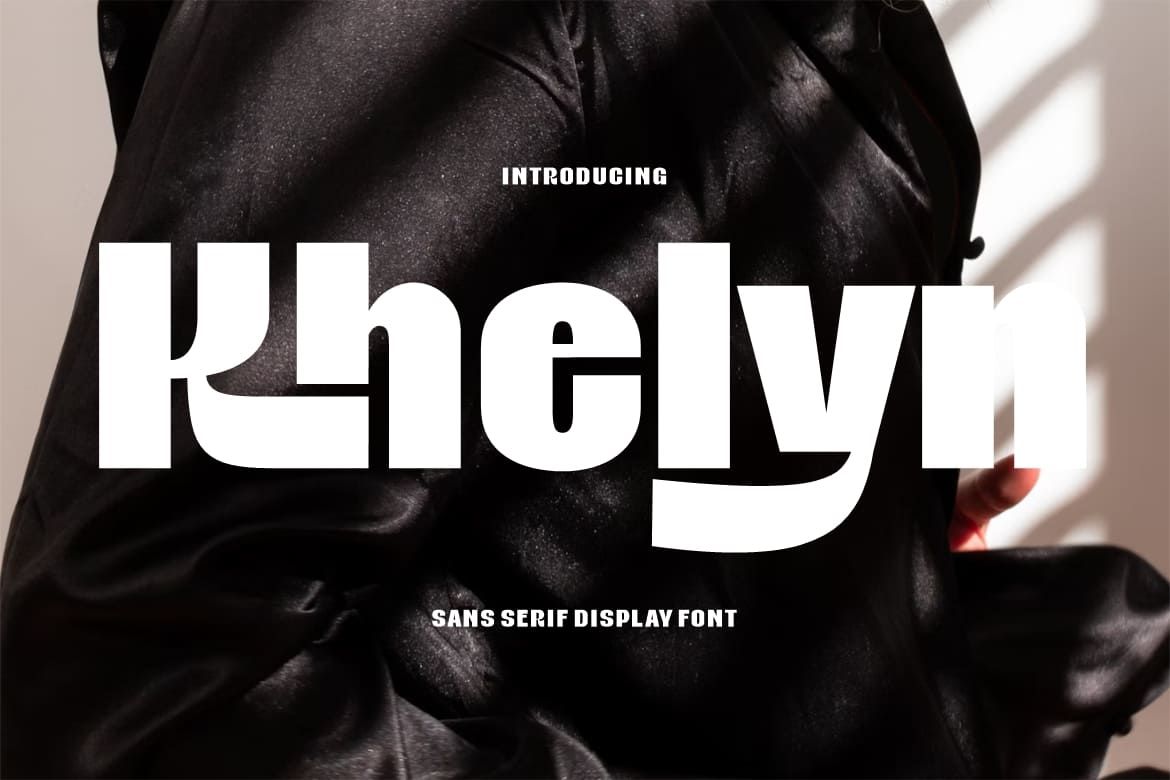
Khelyn is a tall sans-serif with clean strokes and generous spacing. It remains legible across screens and print. The minimal design conveys modern professionalism and clarity.
2. Redotic
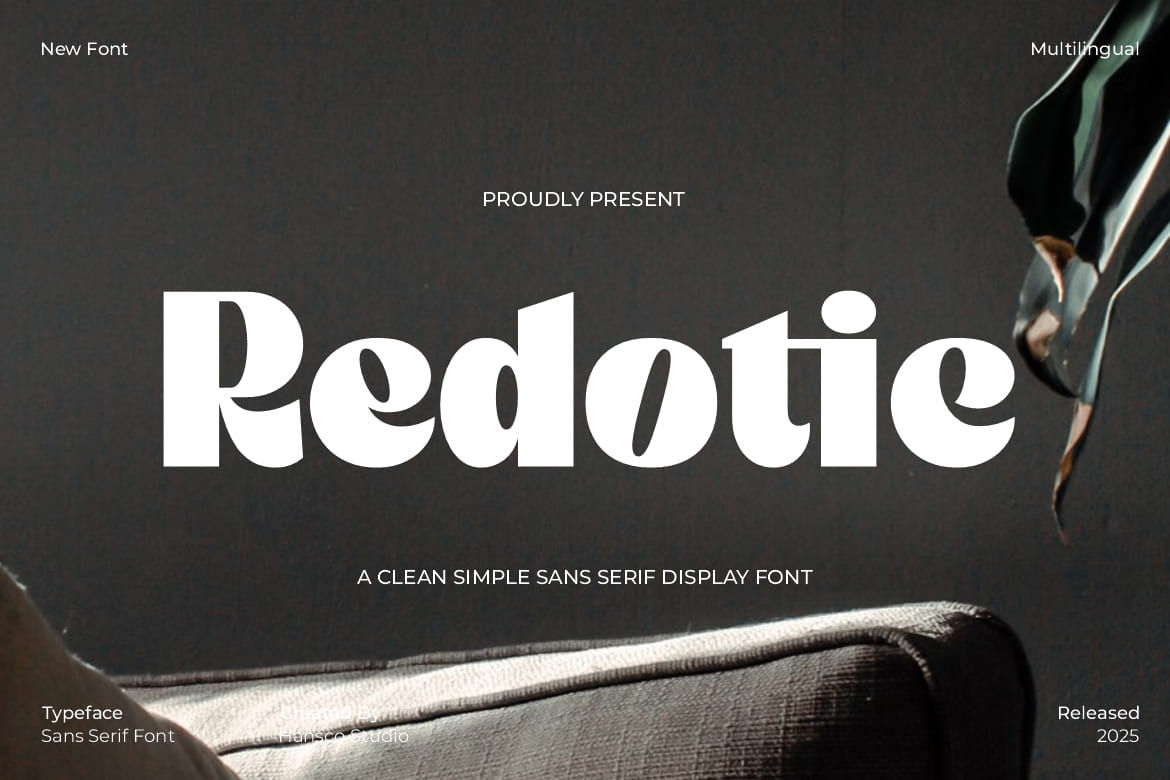
Redotic features bold sans-serif characters with balanced proportions. Its structure ensures recognition even at small sizes. Ideal for corporate or tech brands seeking reliability.
3. Cloth Fate
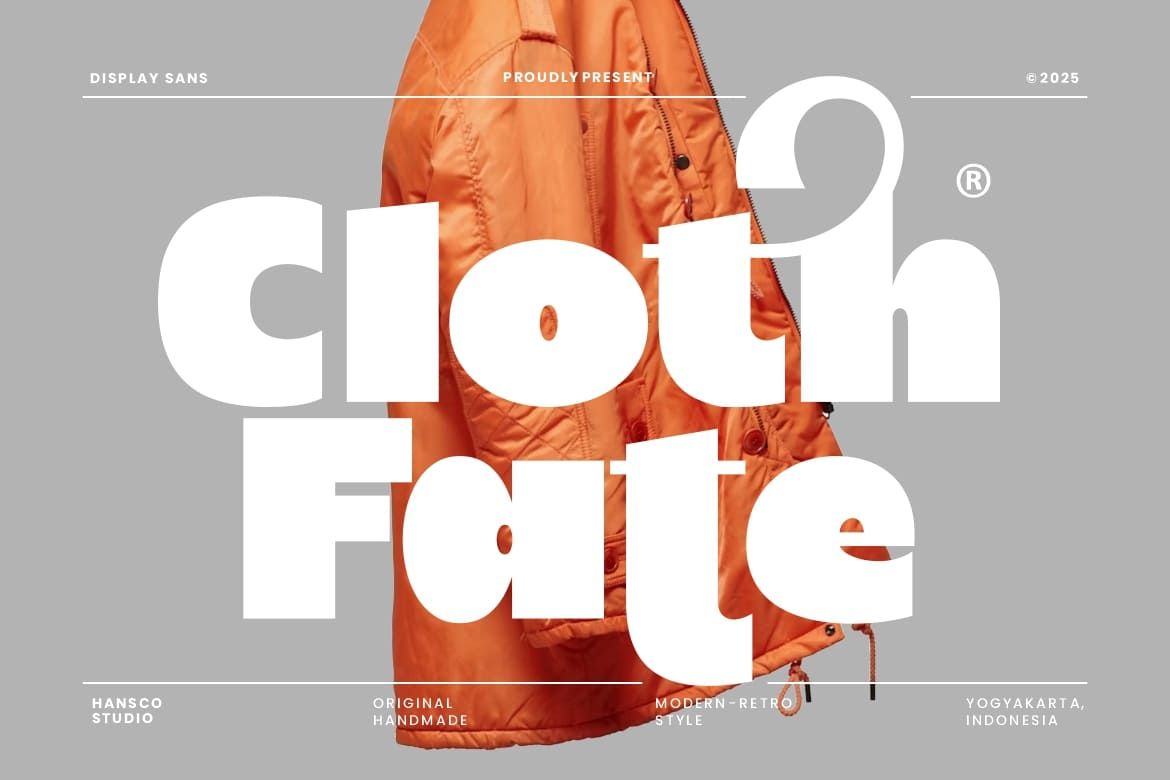
Cloth Fate provides a strong sans-serif with clean geometry. Readable across media, it conveys stability and professionalism. Perfect for modern lifestyle or industrial brands.
4. Riuka
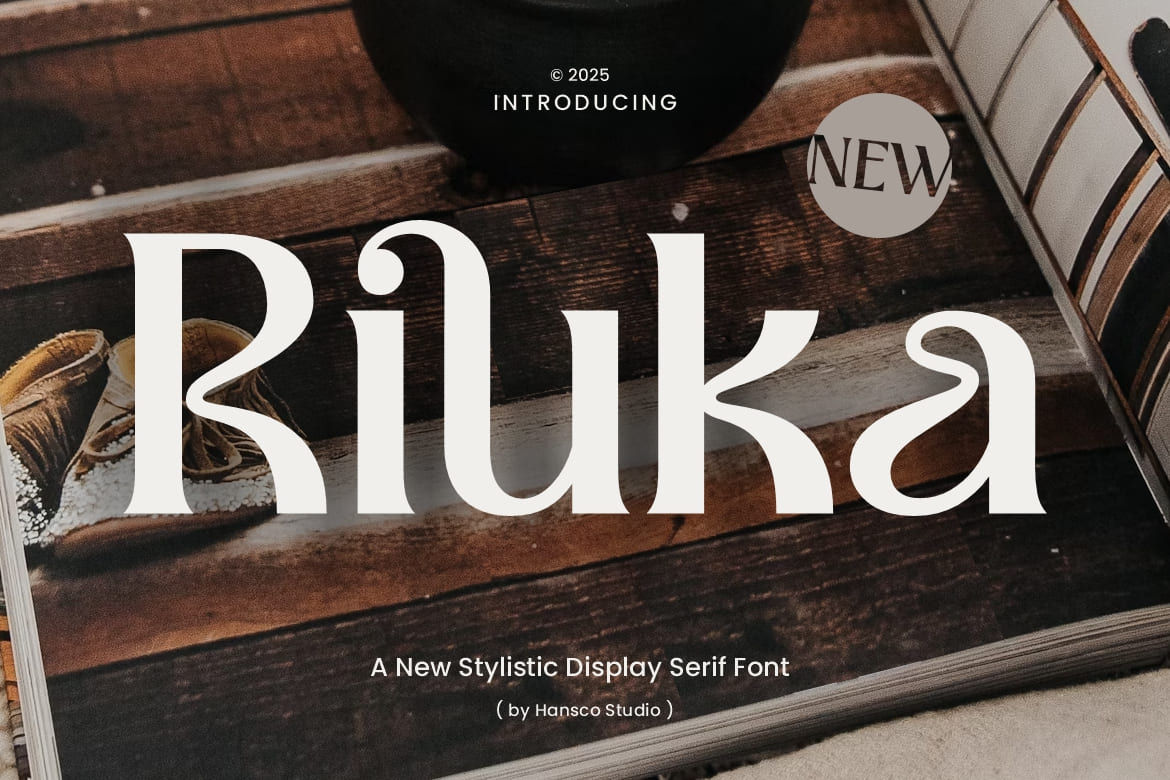
Riuka offers neutral, aesthetic sans-serif letters. Versatile for various industries, it is clear at all sizes. It presents a modern, approachable identity.
Retro & Vintage
Retro and vintage designs can also be considered when selecting the best font for a logo. These fonts evoke nostalgia and heritage. Hence, it’s perfect for cafés, boutiques, or artisanal brands wanting character and story.
1. Letter Magic
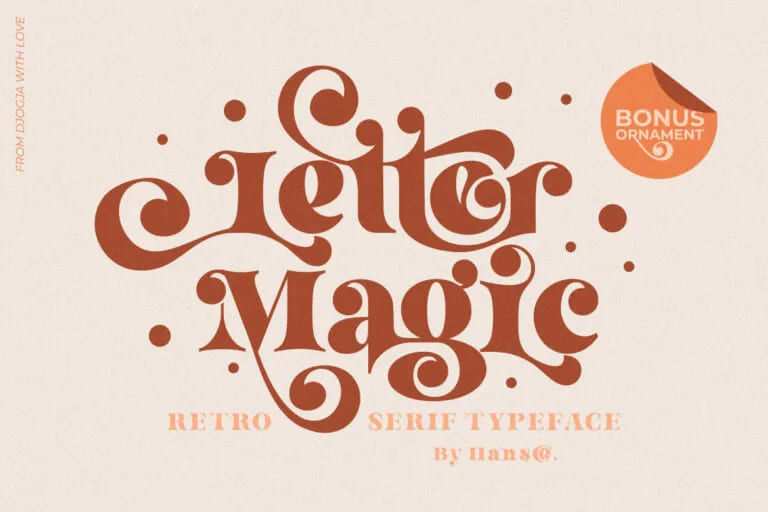
Letter Magic blends retro serif charm with decorative swashes. It adds a handcrafted feel to logos. Ideal for boutique or heritage-inspired businesses.
2. Bakso Menu
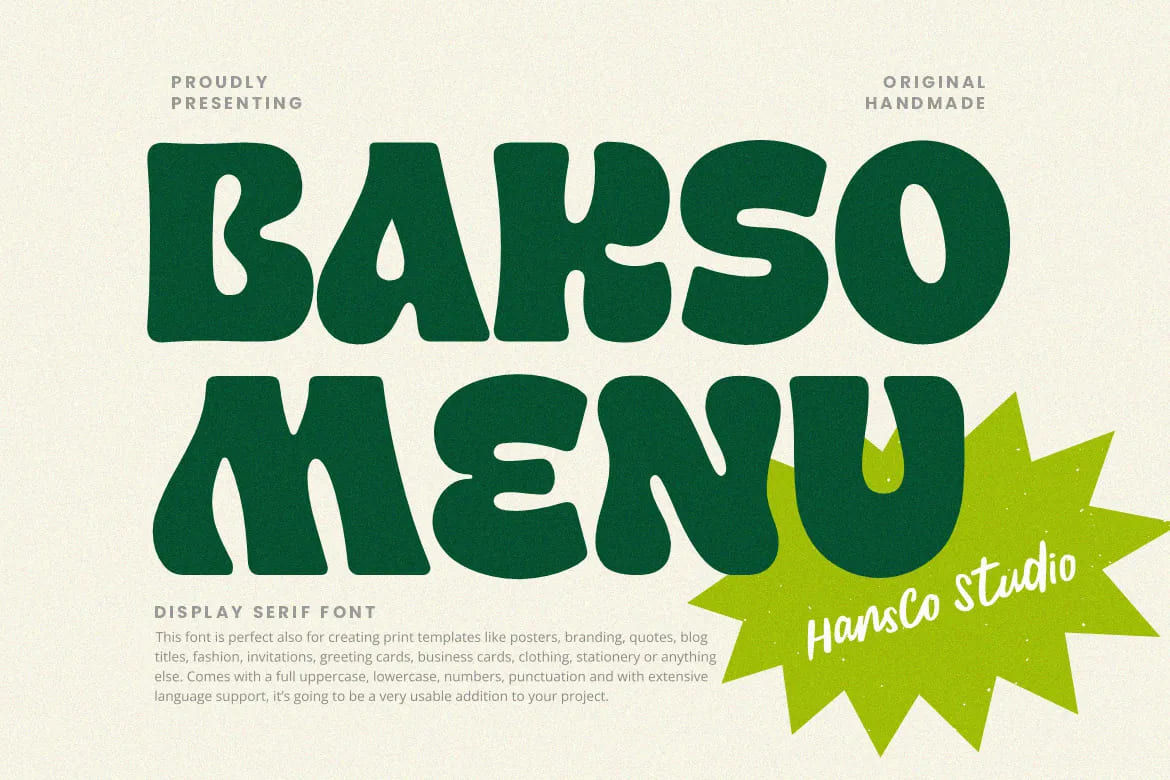
Bakso Menu has chunky, bold retro letters. It ensures visibility and evokes tradition. Suited for casual, nostalgic, or street-food brands.
3. Retro Harmony
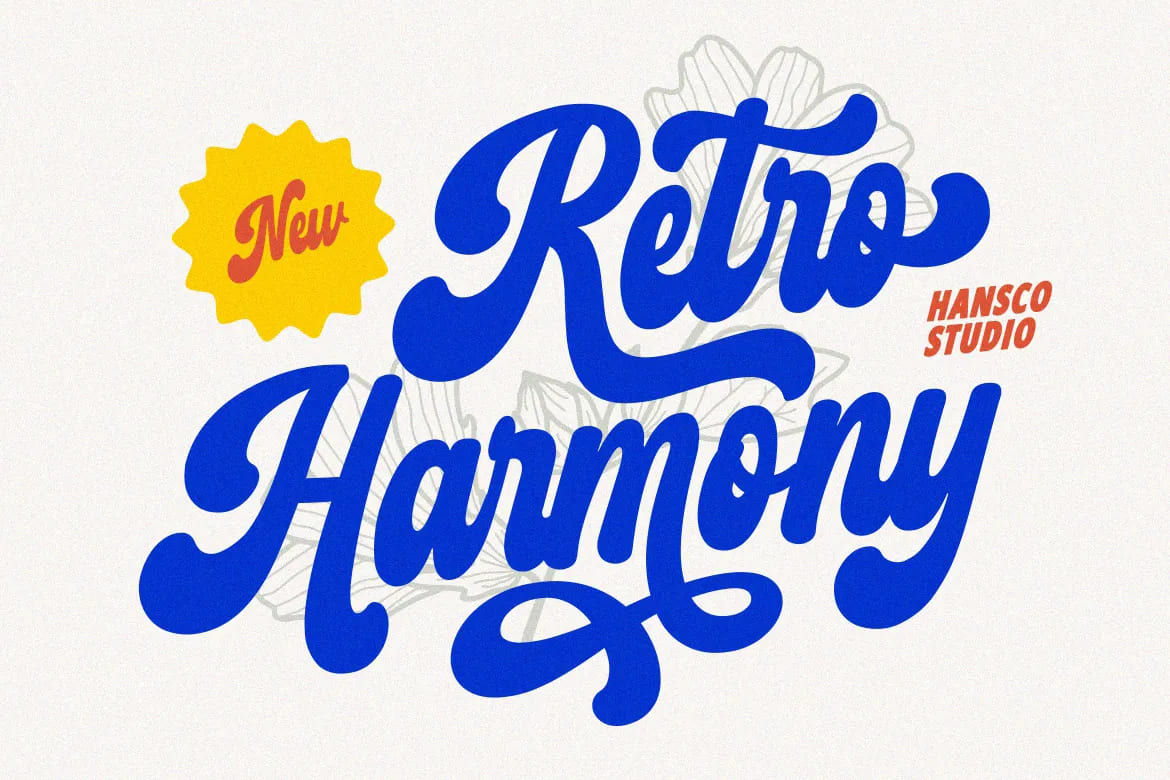
Retro Harmony offers a vintage serif look with readable forms. It balances decorative charm and clarity. Great for heritage or boutique businesses.
4. Rangu Halend
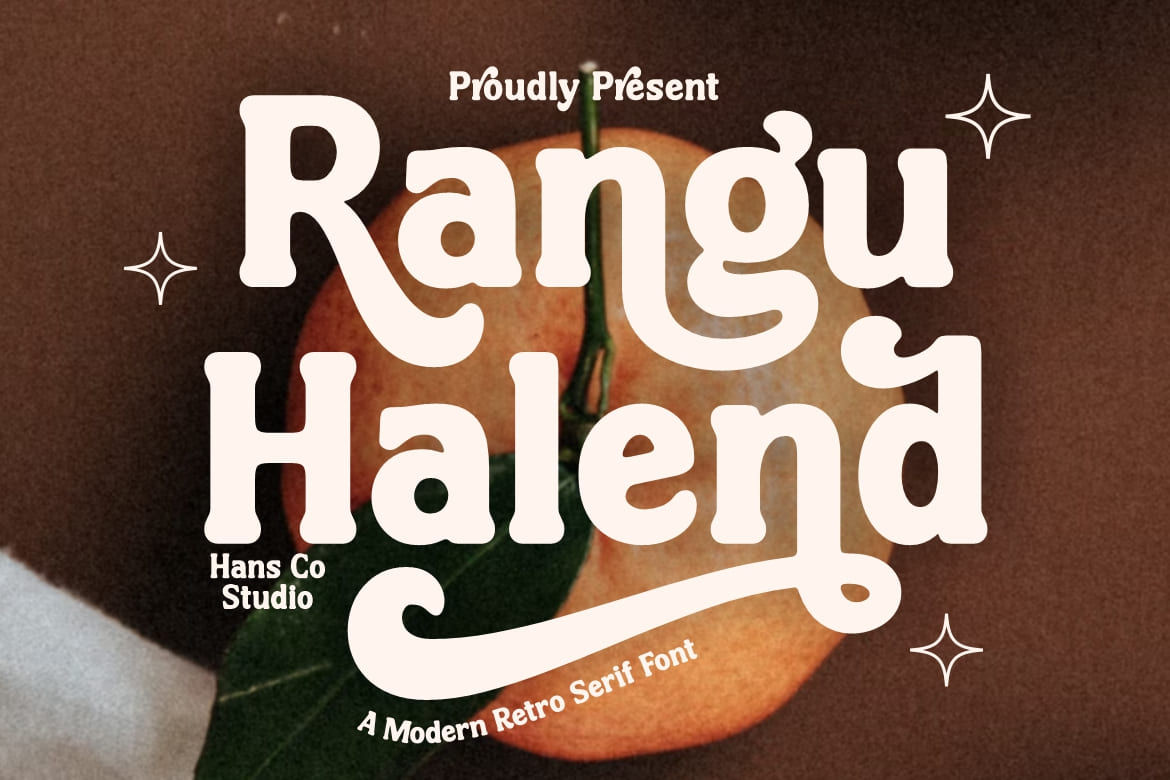
Rangu Halend is a classic serif with a subtle retro style. Versatile for print and digital. It conveys authenticity and timelessness.
Luxury & Elegant
Script and elegant fonts are among the best choices for evoking sophistication and exclusivity. Their sleek, smooth strokes make them ideal for fashion, beauty, resorts, and other luxury services.
1. Wellstone
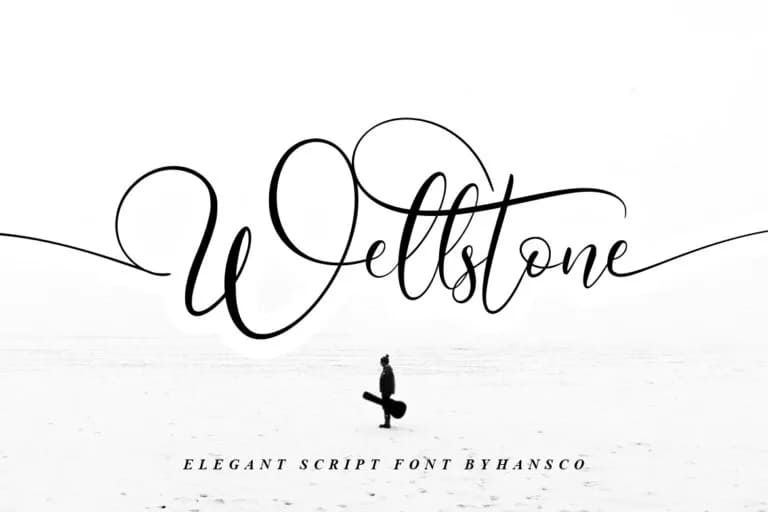
Wellstone is a refined script font with elegant, flowing strokes that evoke a sense of luxury and sophistication. Its cursive style makes a logo feel personal yet high‑end—perfect for boutique fashion, beauty brands, or premium service labels.
2. Holly Days
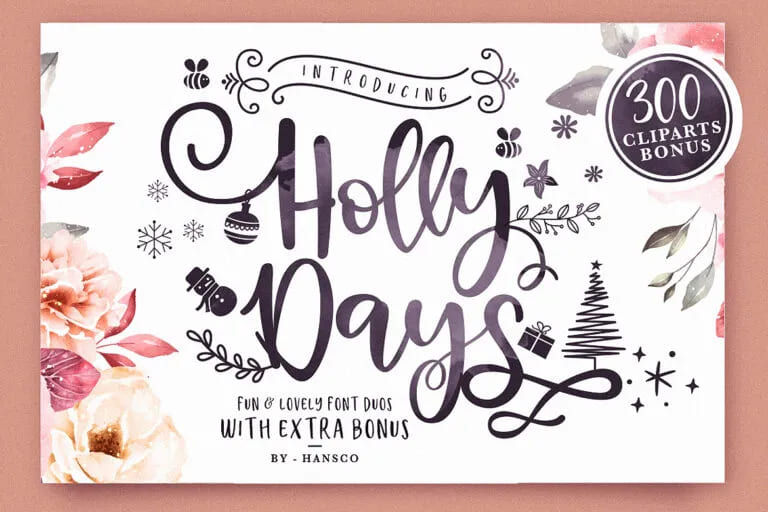
Holly Days delivers a calligraphic, graceful script with soft curves and swirls that lend a romantic and classy vibe. It works especially well for wedding services, luxury stationery, and feminine lifestyle brands.
3. Botania
Botania presents a delicate handwritten‑script aesthetic with smooth lines and alternating glyphs. The gentle sway of its baseline and its sophisticated curves suggest femininity and high quality, making it ideal for beauty, boutique, or handmade luxury brands.
4. Emelina Scripts
Selecting the best font for a logo becomes easier when styles are grouped and matched with industry needs. Exploring minimal, retro, elegant, playful, or bold ensures your brand communicates clearly and consistently. Consistent typography ensures brand recognition and trust.